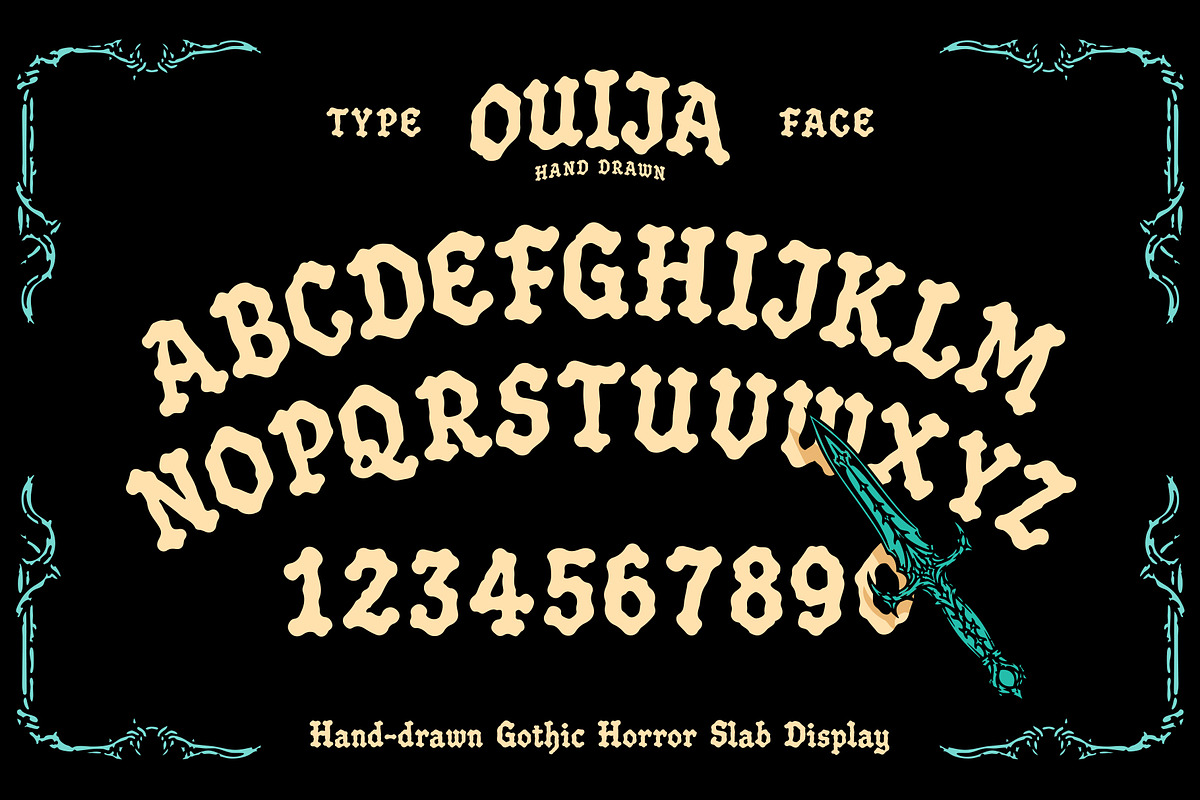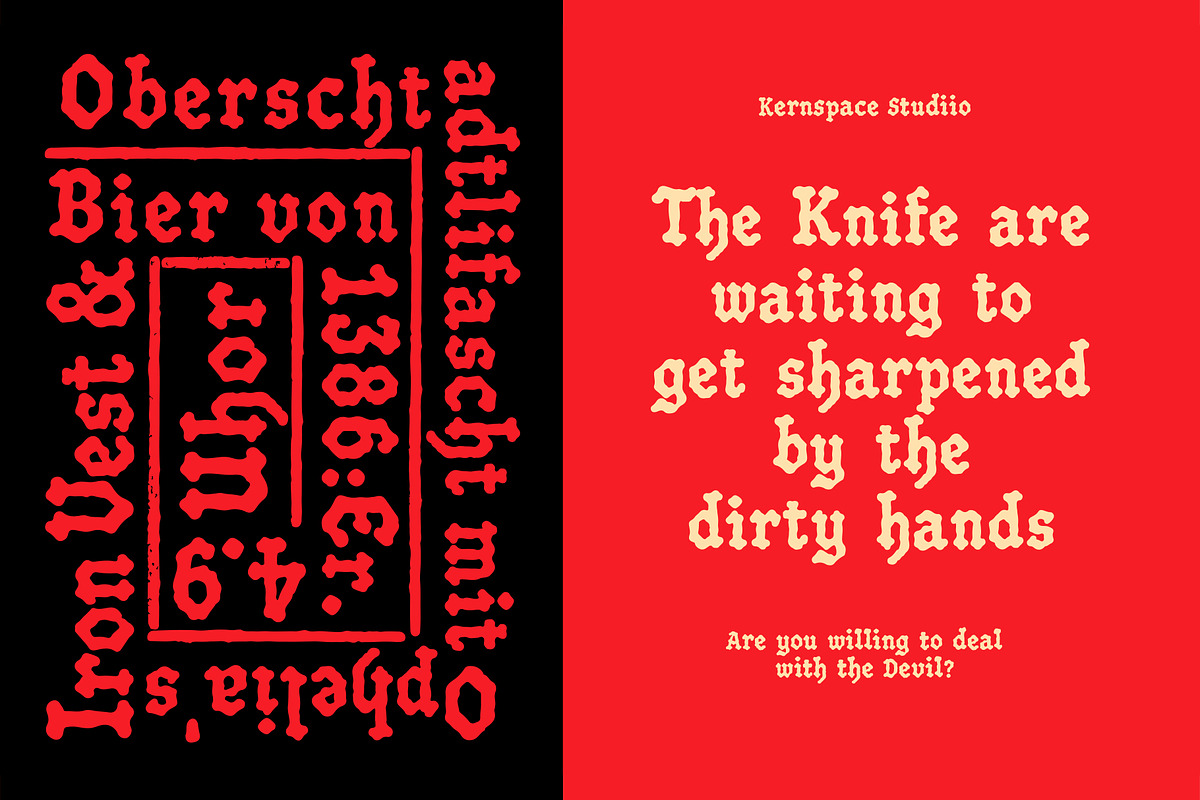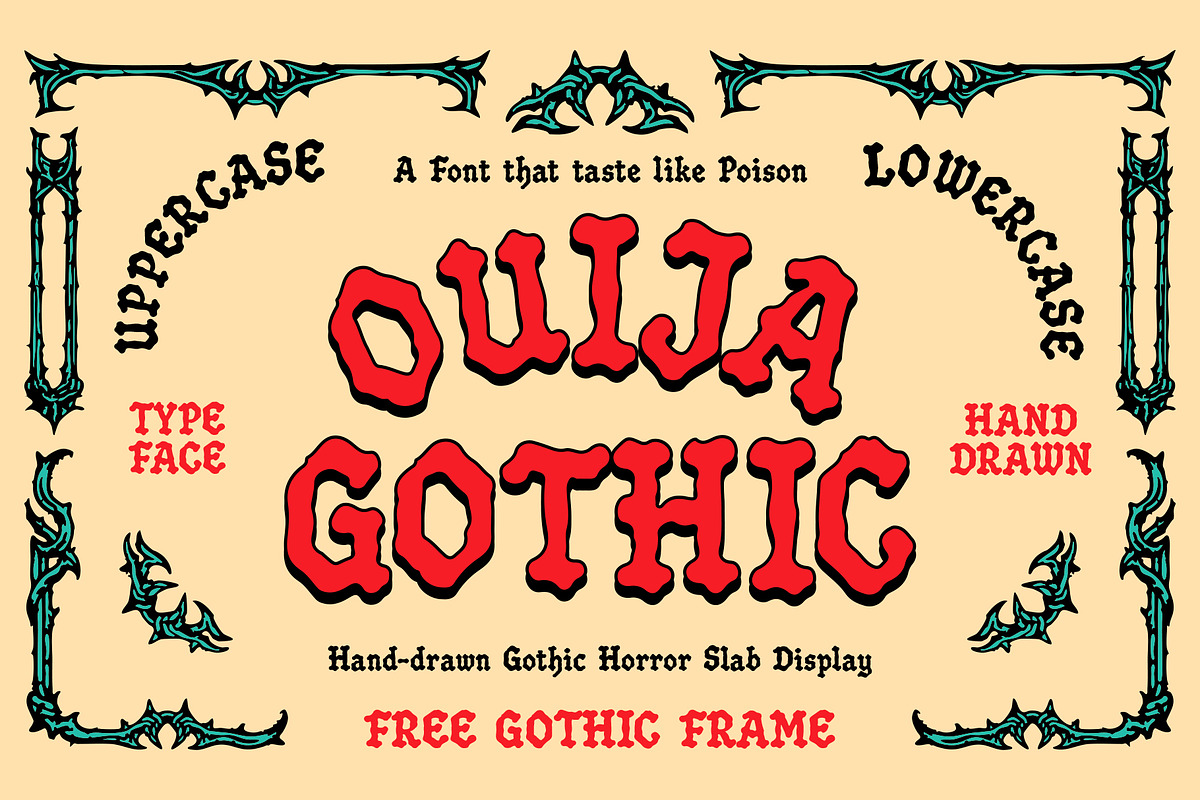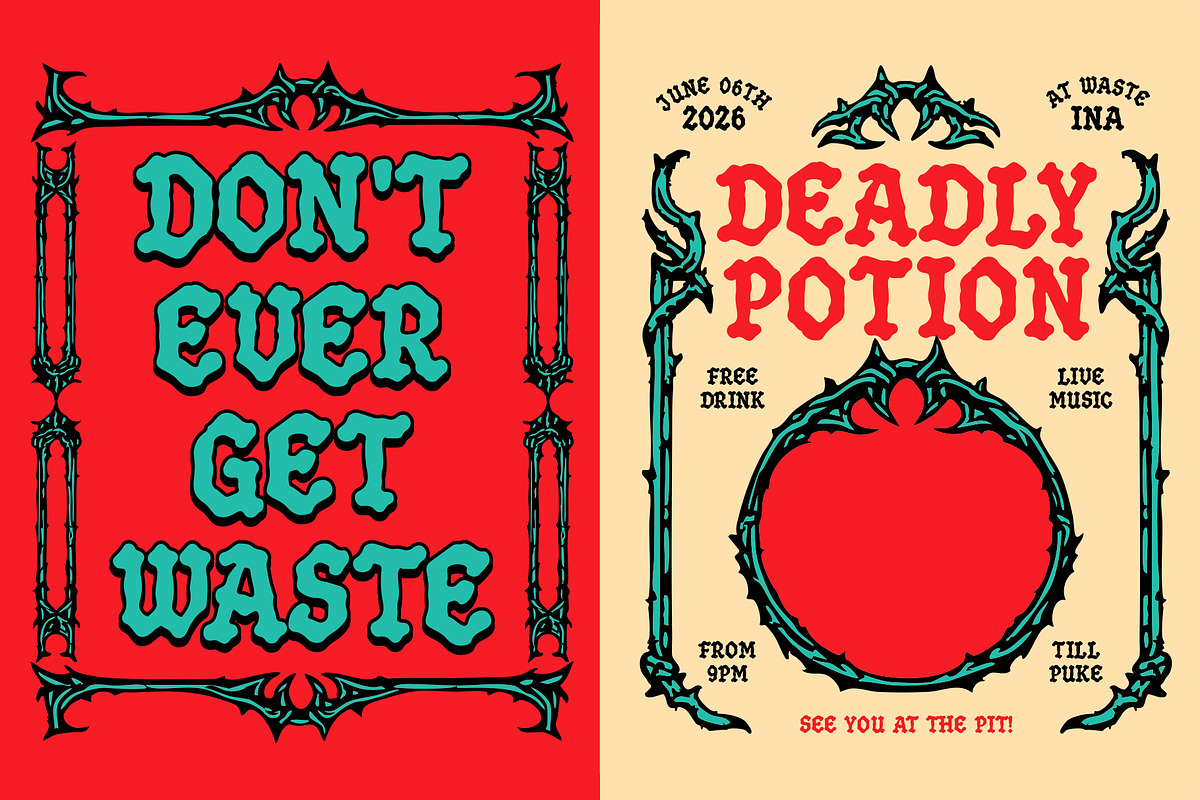
KSP Ouija Gothic
Ouija Gothic — Hand-Drawn Gothic Horror Display Font
Ouija Gothic is a bold hand-drawn display font inspired by gothic horror, occult graphics, and vintage underground posters. Built with chunky slab shapes, rough organic edges, and an imperfect handmade feel, this font is made to bring instant attitude to your design.
Perfect for horror posters, band merch, tattoo studios, streetwear graphics, Halloween campaigns, album covers, stickers, packaging, and dark visual branding, Ouija Gothic gives every word a creepy, loud, and unforgettable presence